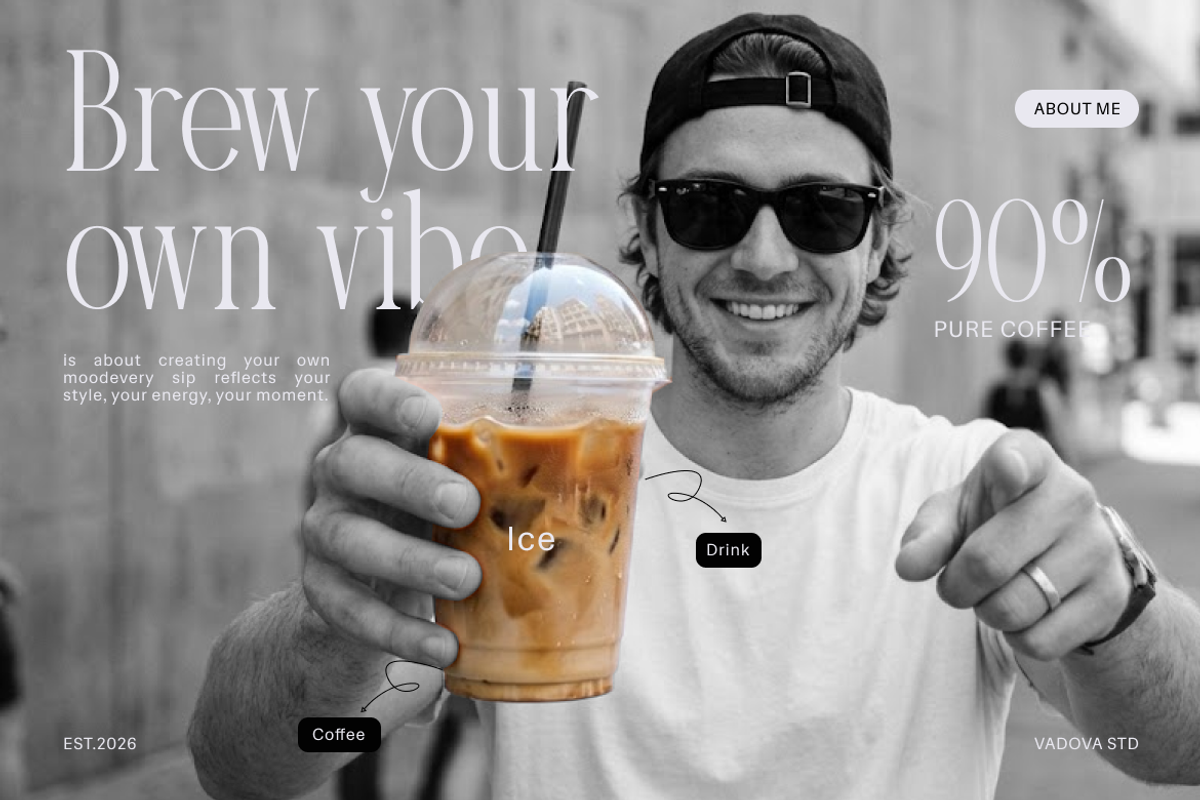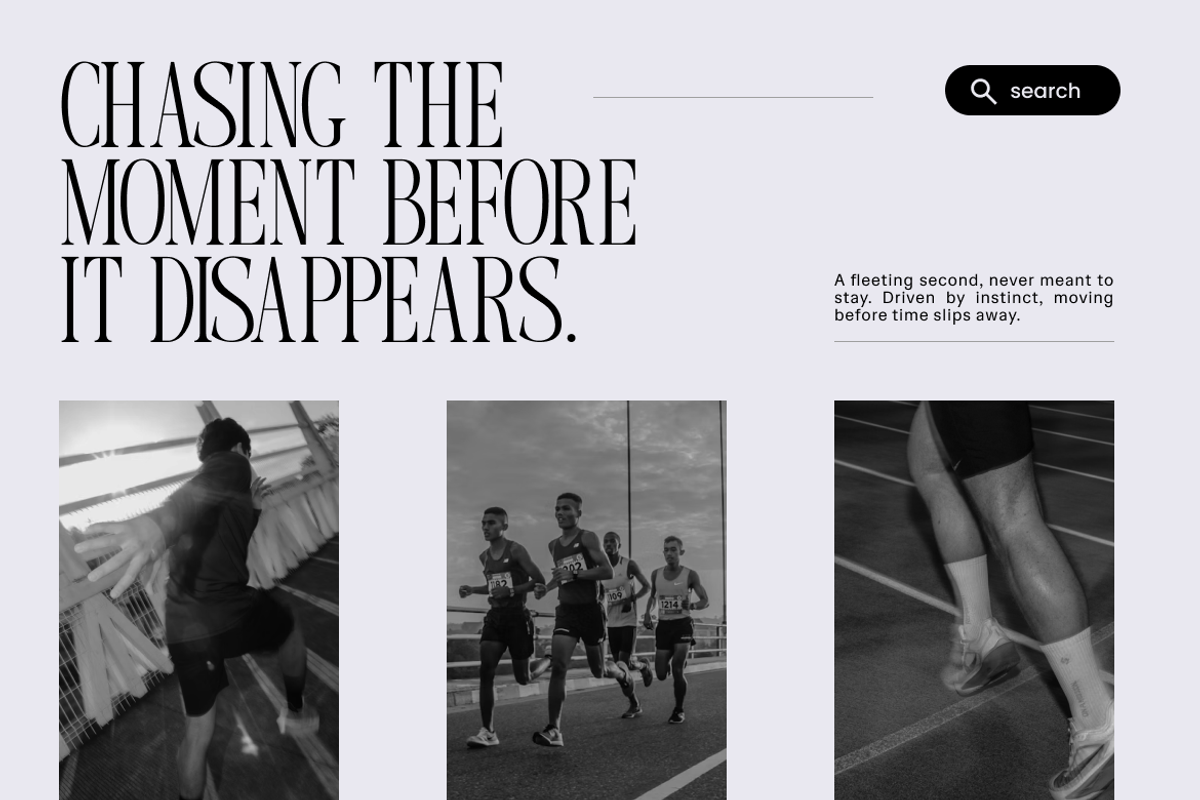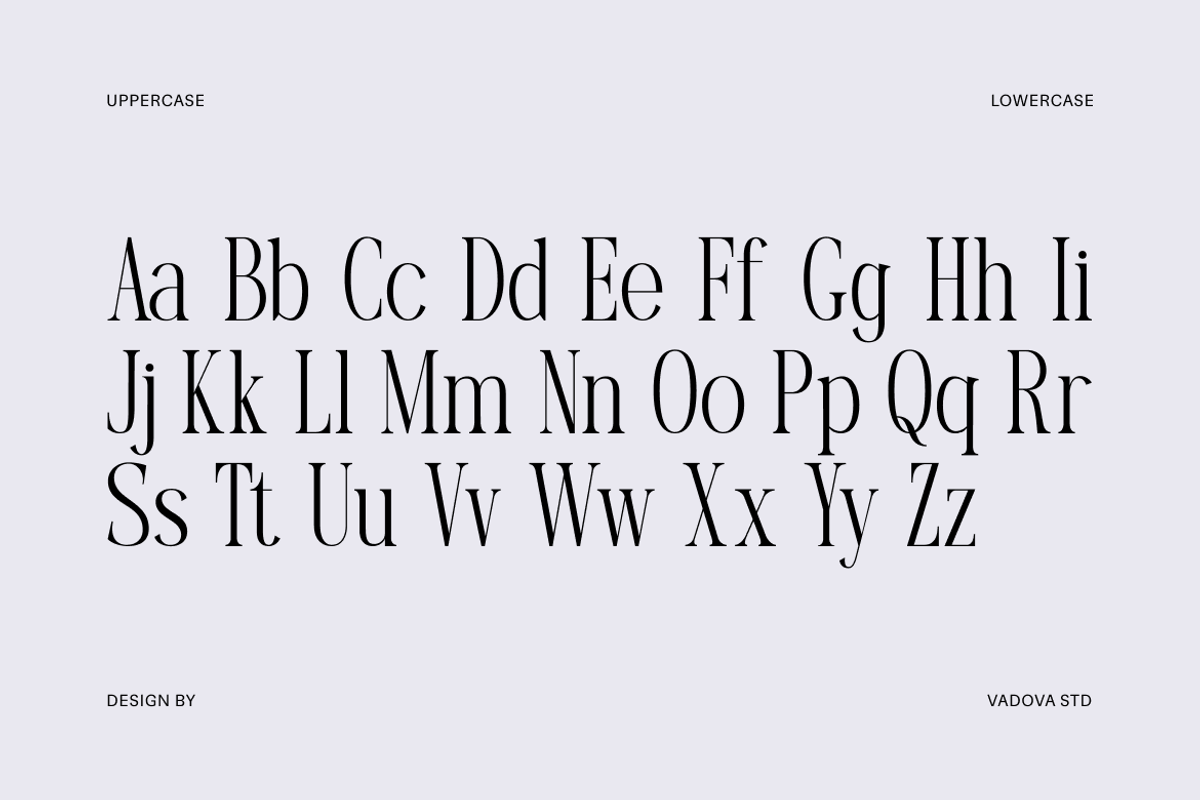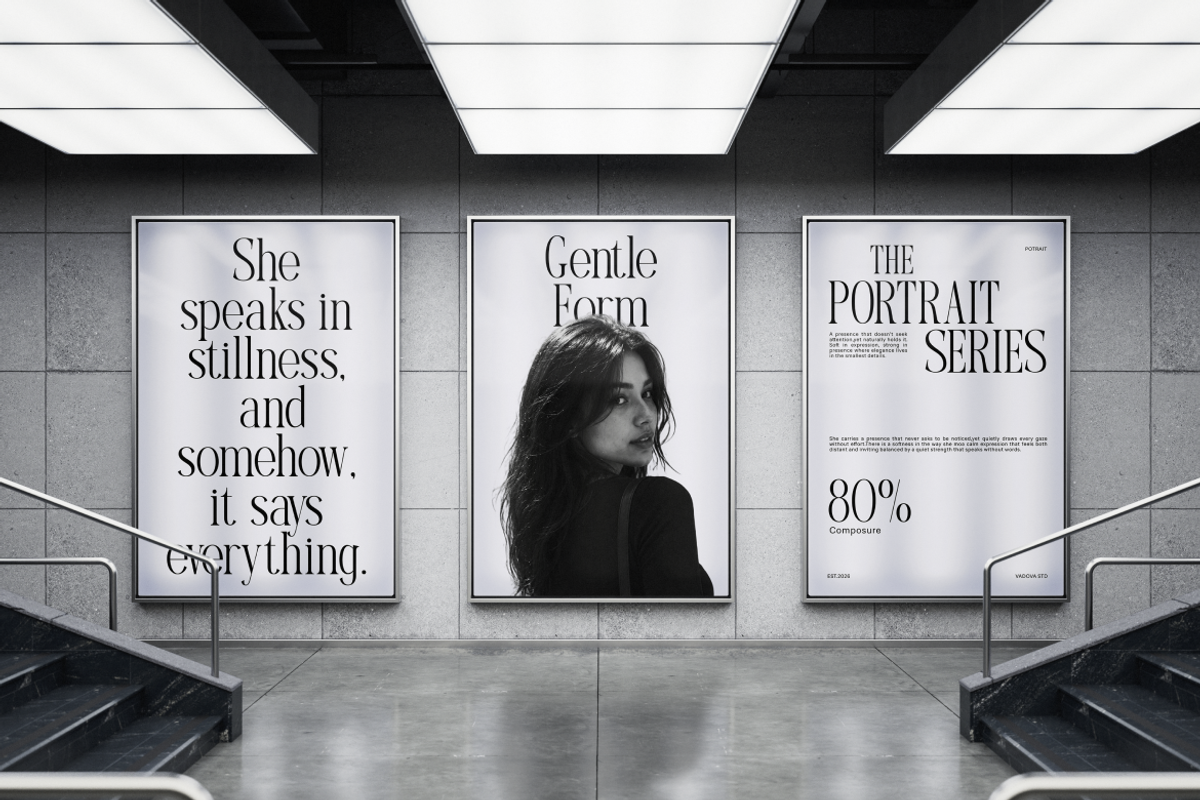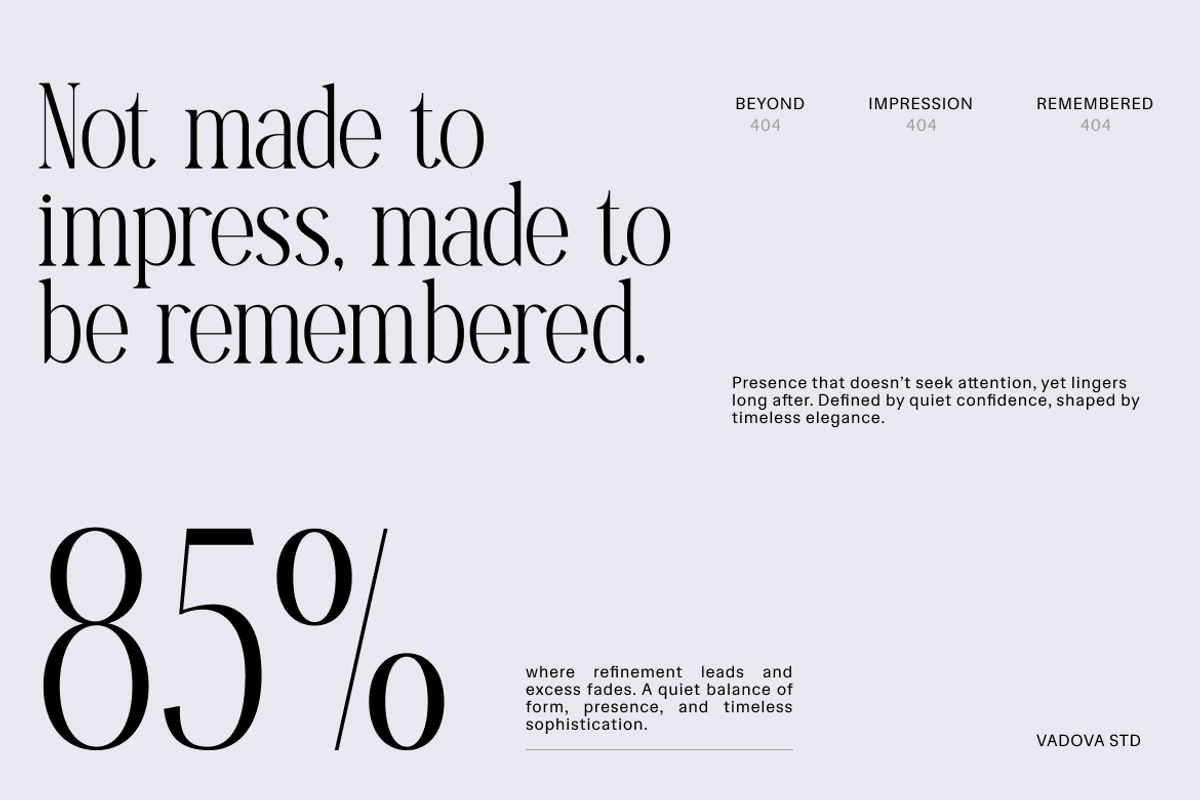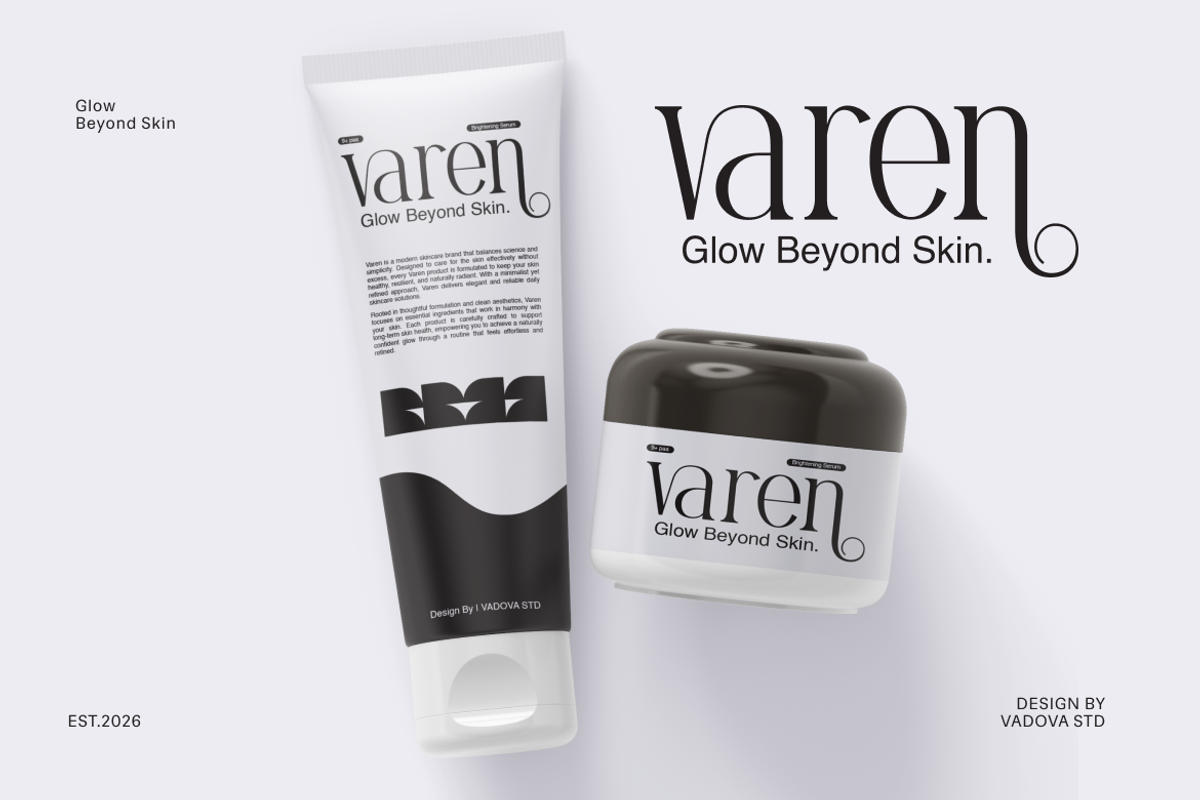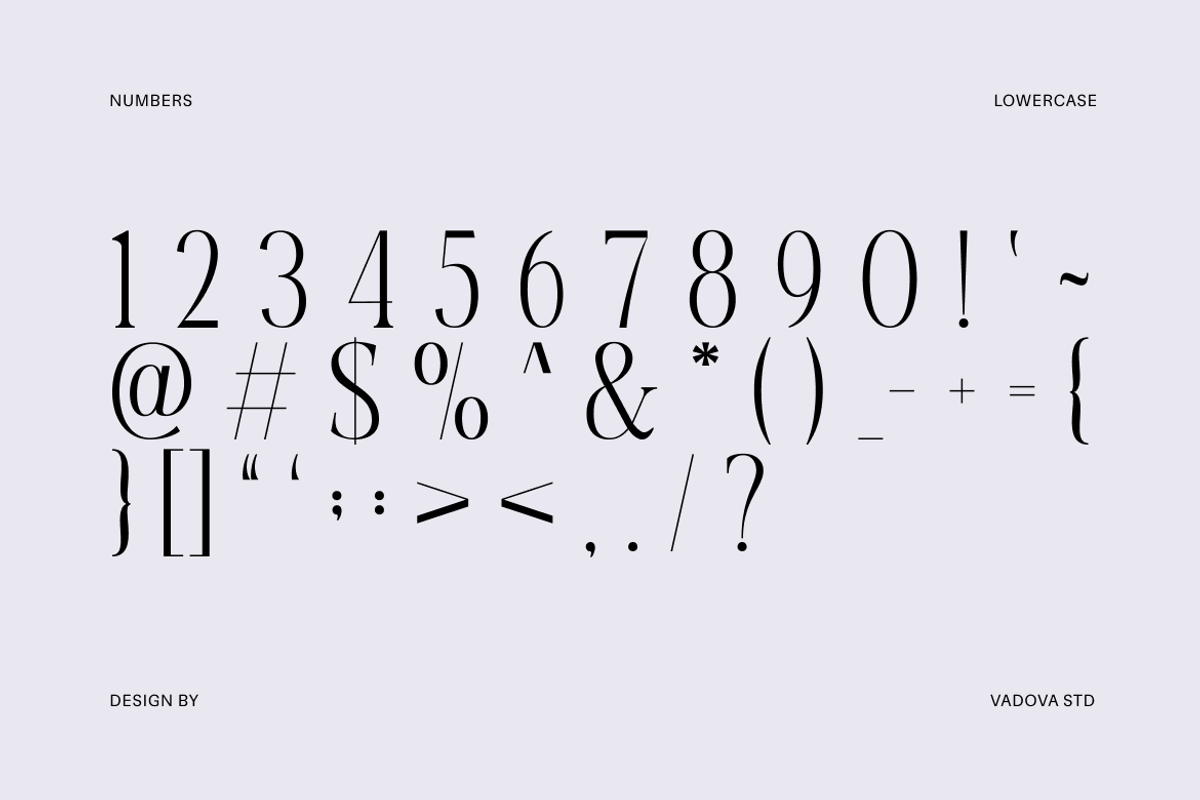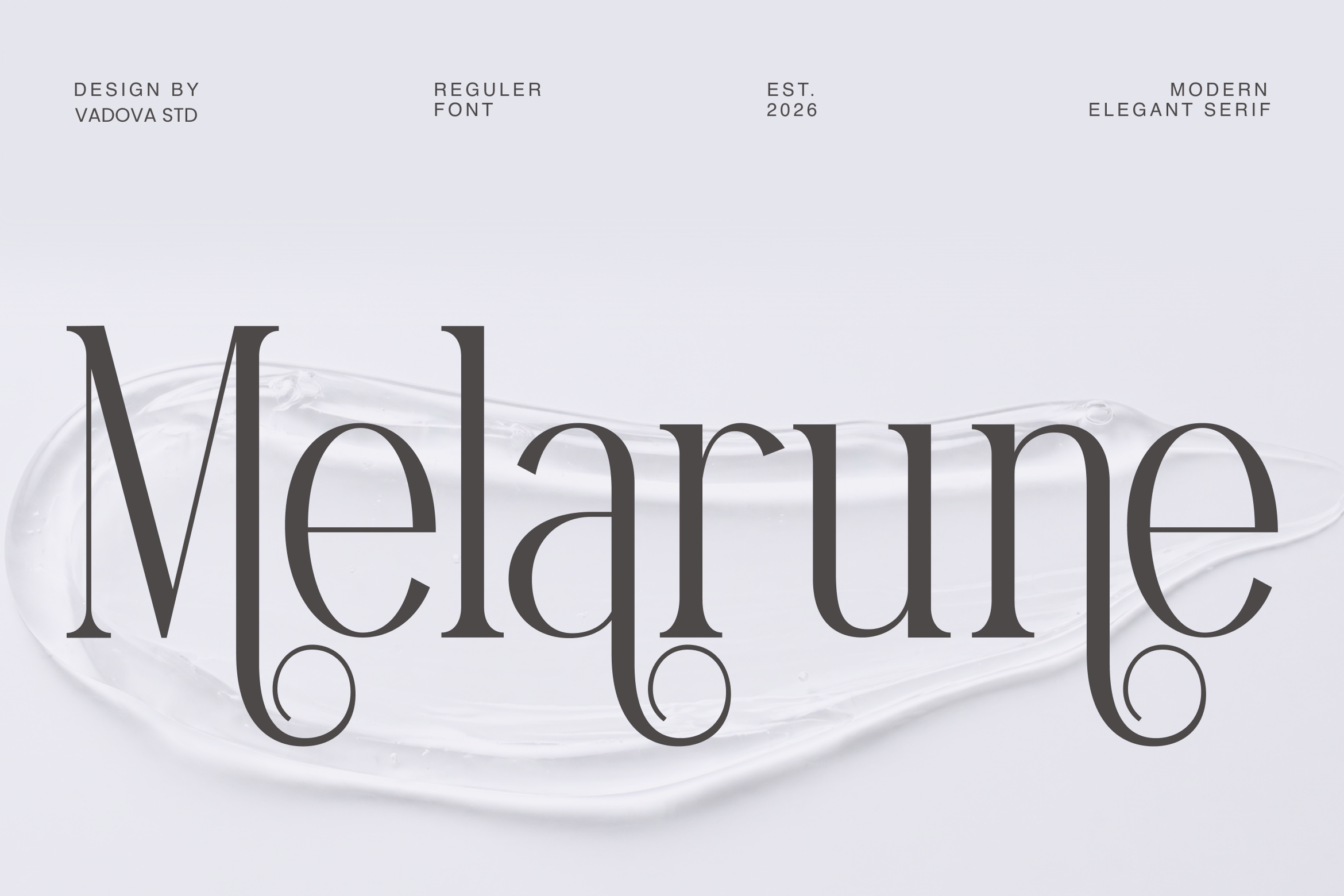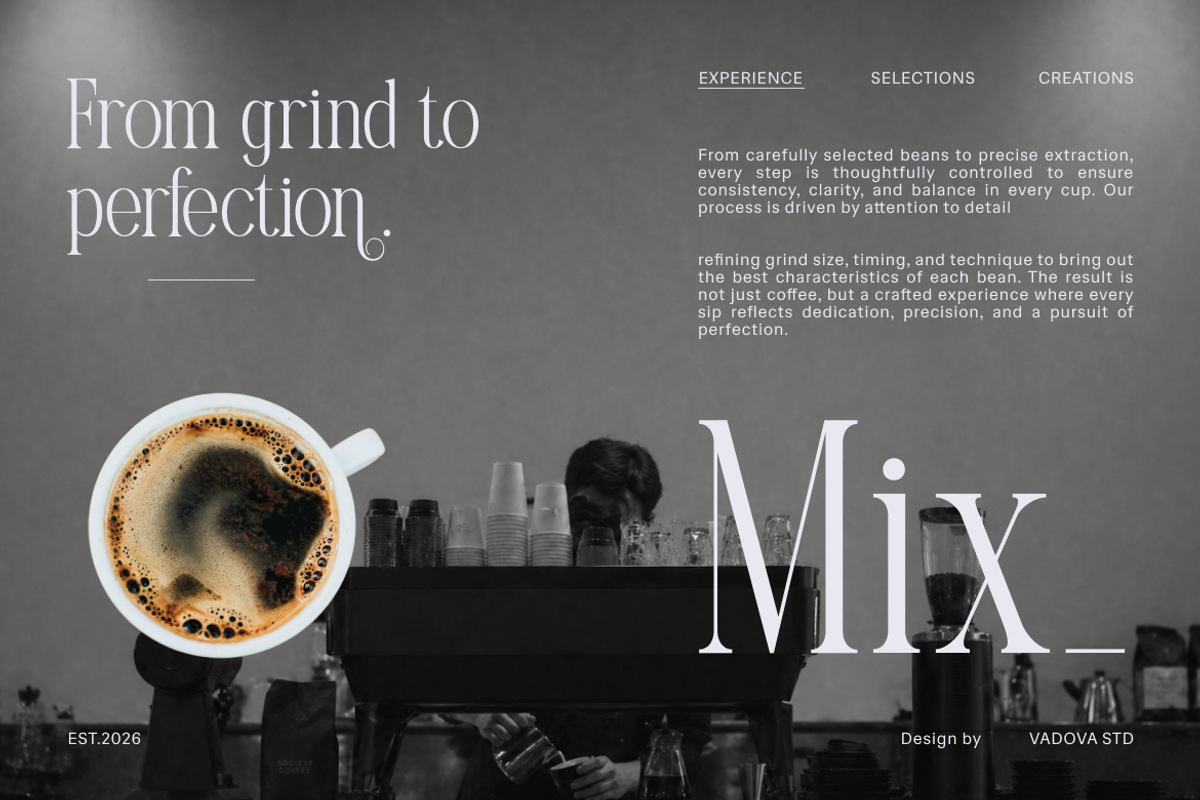
Melarune Modern Elegant Serif Font
Melarune Modern Elegant Serif showcases a refined typeface with graceful high-contrast strokes, delicate curves, and distinctive ornamental terminals that create a timeless and sophisticated visual identity. The letterforms balance modern editorial aesthetics with subtle classic influences, delivering elegance and clarity across layouts. This font includes uppercase, lowercase, numerals, punctuation. Melarune is designed to bring a polished and expressive tone to contemporary visual design.
Relevance and Use Cases is perfect for fashion branding, luxury logos, editorial layouts, magazine headlines, beauty packaging, wedding designs, lifestyle content, photography branding, social media visuals, and premium marketing materials that require a refined, elegant, and timeless typographic presence.
High-contrast serif structure with refined thin and thick strokes for a luxurious look
Elegant curved terminals and distinctive ornamental tails adding graceful character
Slim proportions with tall ascenders for a sophisticated editorial presence
Delicate serif details that enhance readability while maintaining a stylish aesthetic
Balanced spacing and rhythm for smooth text flow in both headlines and body
Brand identity systems for luxury, fashion, and lifestyle businesses
Editorial magazines, lookbooks, and high-end publication layouts
Beauty, skincare, and premium product packaging design
Wedding invitations, event stationery, and elegant print materials
Social media branding and marketing visuals with a refined aesthetic
Supports numerals, punctuation, and extensive symbol set